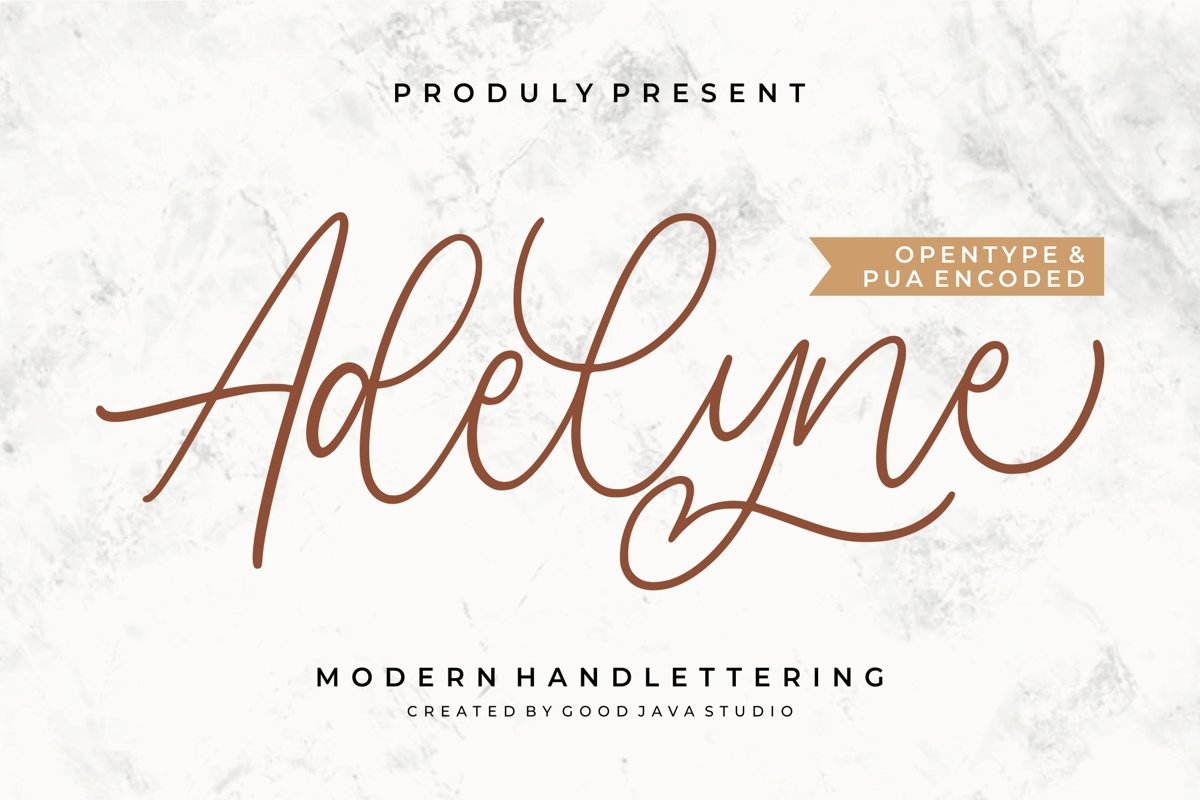
Adelyne - Modern Handlettering
Adelyne a modern handlettering font make from handlettering ideas in typeface. This font includes full of Alphabetical glyphs, Numerals, and punctuation. This is so perfect for invitations, monograms, wedding, fashion, branding, label, handlettering or logotype.What's included?
• Opentype features (SS01-SS04) & Ligatures
• Very great for branding, logotype, handletteing, invitations, or fashion branding.